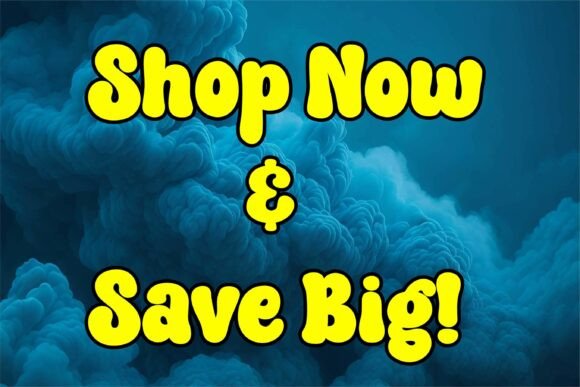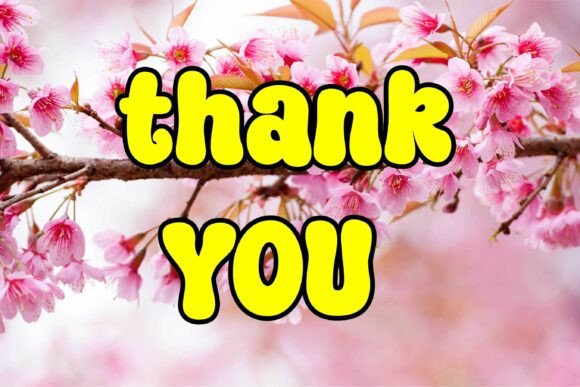
Introduction to Happy Bright Font
As a designer, you know that the right font can make all the difference in bringing a project to life. But have you ever felt like your designs are missing that extra something – that burst of energy and joy that draws people in and makes them smile?
That’s where Happy Bright Font comes in – a high-quality, free download that’s designed to add a playful touch to your creative projects. With its bold, rounded style and transparent background, Happy Bright Font is the perfect design resource for anyone looking to add a little happiness to their work.
Whether you’re designing for kids, branding, or social media, Happy Bright Font is the perfect choice for projects that need a touch of excitement and personality. And with its friendly, approachable feel, it’s a valuable resource for designers who want to create high-quality, engaging designs that truly shine.
Key Features of Happy Bright Font
- High-quality design: The Happy Bright Font is crafted with attention to detail, ensuring a crisp and clear appearance in your creative project.
- Transparent background: This font features a transparent background, allowing you to easily combine it with other design elements and create a cohesive look.
- Perfect for digital designs: With a resolution of 300 DPI, the Happy Bright Font is ideal for digital designs such as website headers, social media graphics, and more.
- Size: The font comes in a range of sizes, from 12 to 72 points, giving you the flexibility to customize the look of your creative project.
- Unique characteristics: The Happy Bright Font features a bold and playful style, making it perfect for designs that require a fun and energetic tone.
Honest Review: Happy Bright Font
I recently had the opportunity to work with the Happy Bright Font, and I must say it’s a great addition to any design project. This font is perfect for creating a fun and vibrant atmosphere, and its high quality makes it stand out from other free downloads.
Here are some things that work well with the Happy Bright Font:
- ✨ Vibrant and playful style that’s perfect for creative projects
- ✨ High quality design that’s suitable for both digital and print media
- ✨ Transparent background makes it easy to use with any design
- ⚠️ Limited character set, which may not be ideal for longer text
- ⚠️ May not be suitable for professional or formal projects
Overall, I’m impressed with the Happy Bright Font. It’s a great design resource for anyone looking to add a touch of fun and personality to their project. While it may not be perfect, its high quality and vibrant style make it a valuable addition to any designer’s toolkit.
Tips for Getting the Most Out of Happy Bright Font
Use Happy Bright Font to add a pop of color and energy to your designs. Experiment with different font sizes, colors, and styles to create a unique look.
Happy Bright Font is perfect for creative projects such as social media graphics, flyers, and posters. It’s also great for branding and marketing materials, such as business cards and brochures.